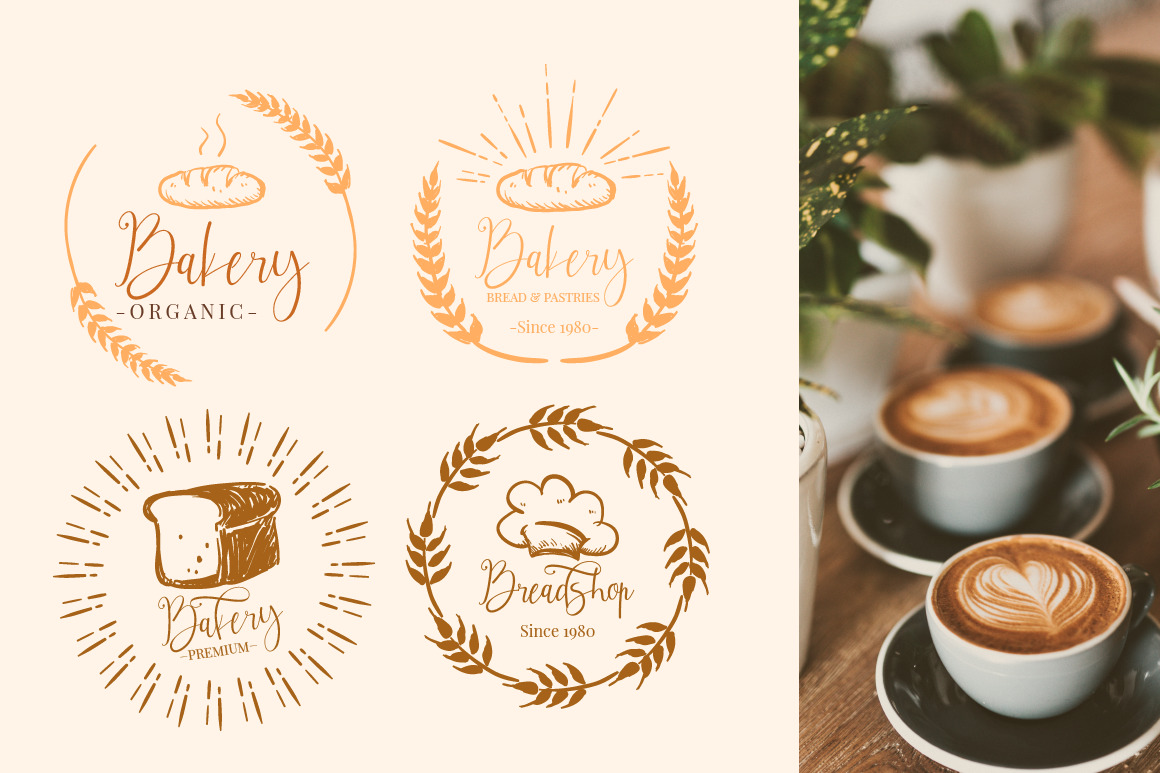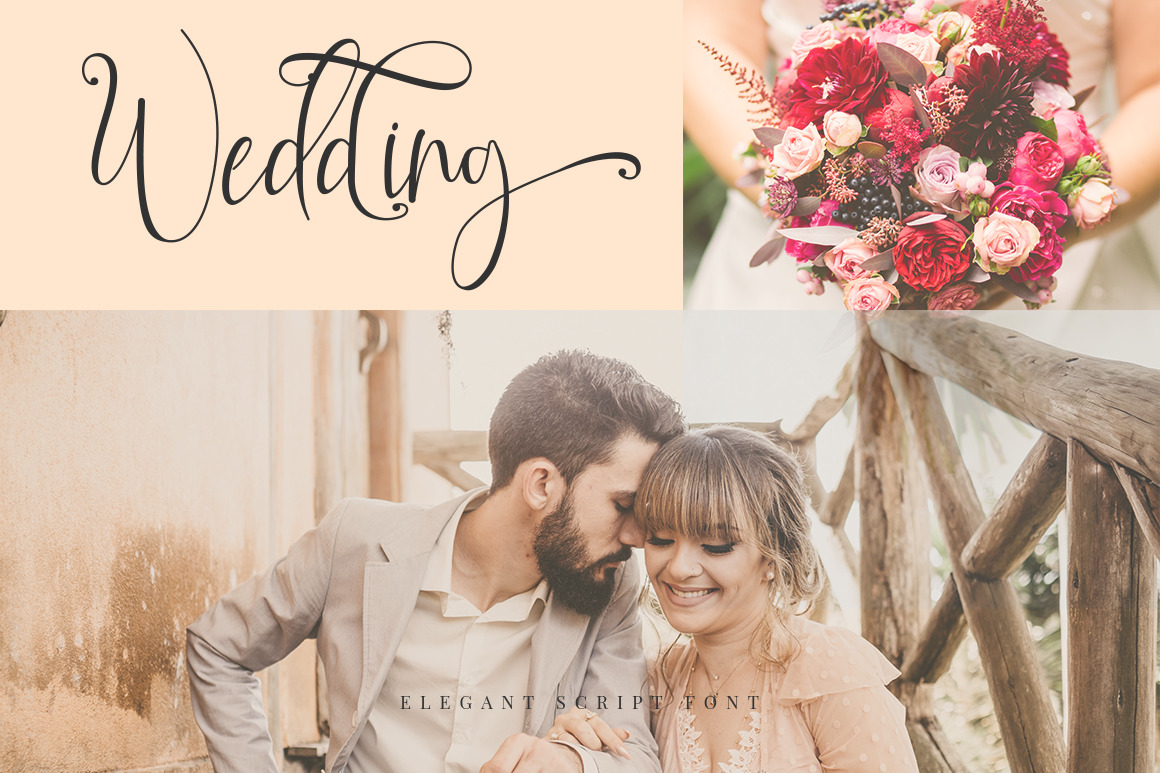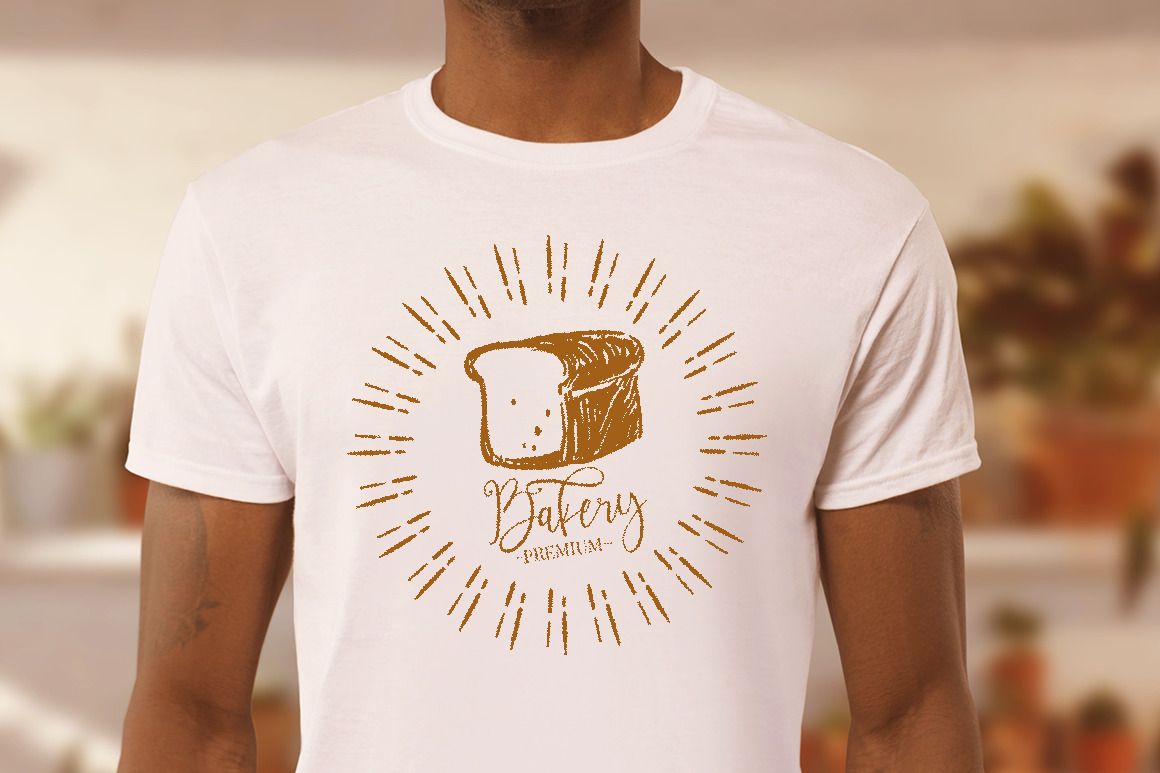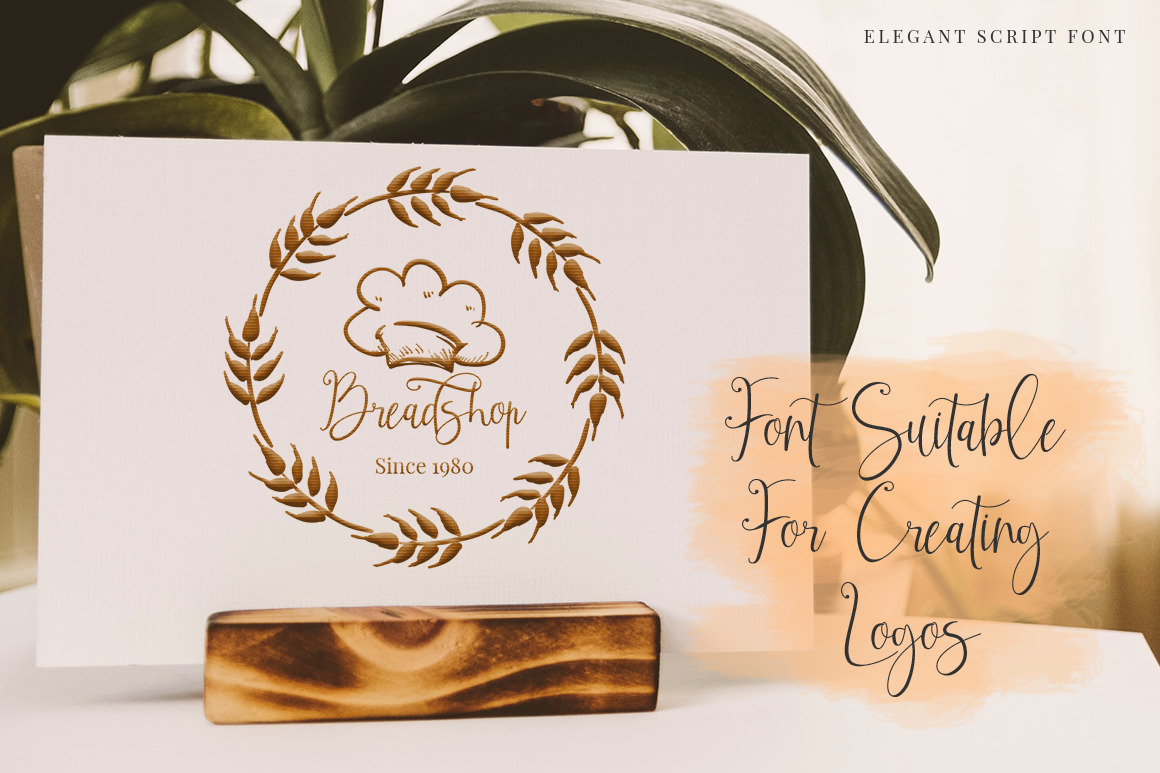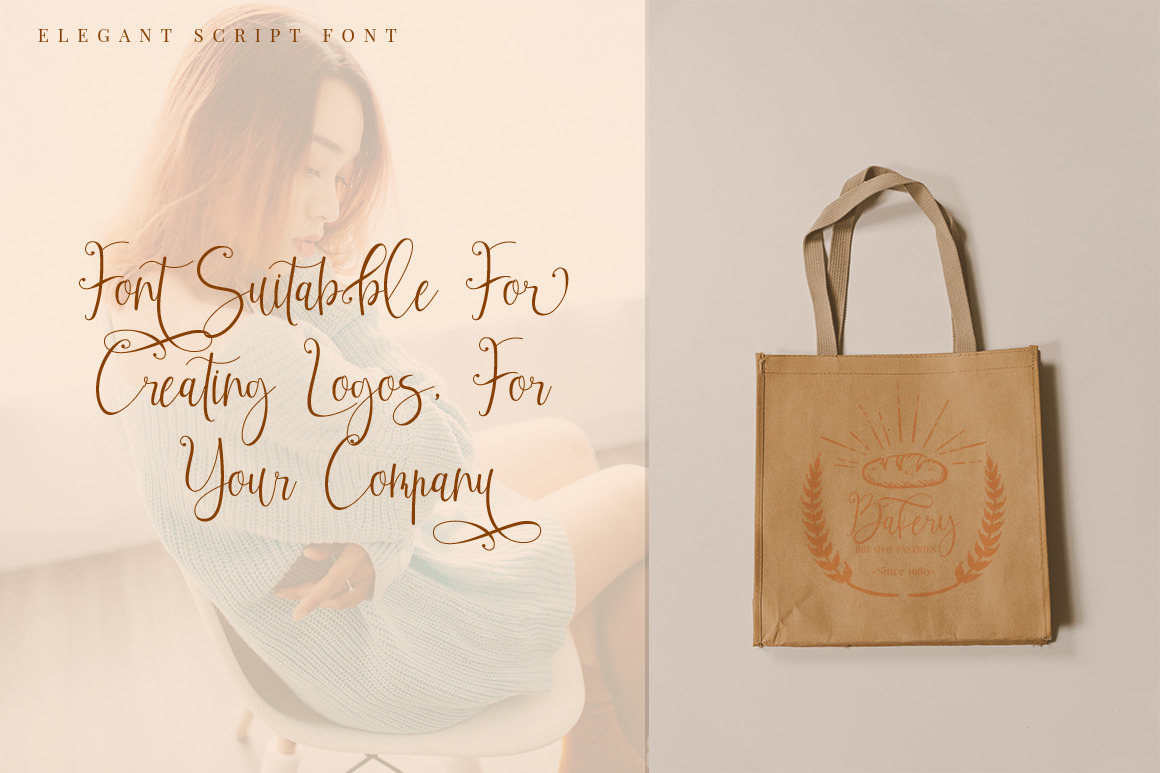
Amarithe - Elegant Script Font
Amarithe is a beautiful modern calligraphy wedding font. This font is feminime, elegant, messy and modern.
Amarithe perfect for wedding event, anniversary, birthday,greeting cards, logotype, branding, wedding invite and card, elegant logo, poster, packaging, stationery, website, and any other projects requiring a handwritten and luxurious touch.
Come with open type feature with a lot of alternates, its help you to make great lettering.
This font is also support multi language.
- Alternate & Ligature
- Number, Punctuation And Symbols
- Multilanguage Support.